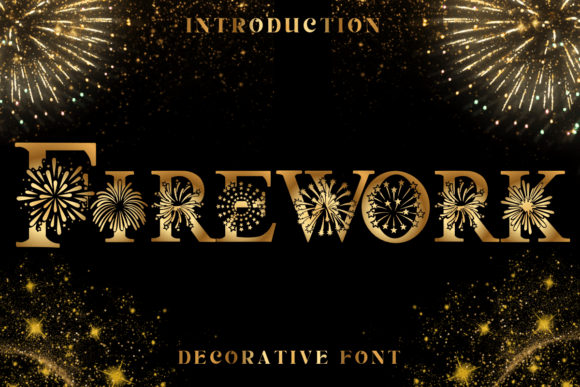
The Perfect Spark: Unleashing the Magic of the Firework Font
As I sat in my design studio, brainstorming ideas for a New Year’s Eve invitation, I suddenly felt a rush of inspiration. I imagined a night sky filled with vibrant fireworks, each explosion bursting with color and light. And in that moment, I knew exactly what I needed: a font that captured the essence of that magical night. Enter the Firework Font, a breathtaking decorative typeface that brings the excitement of fireworks to your designs.
The Firework Font is more than just a pretty face – it’s a powerful tool for designers looking to add a touch of luxury and drama to their projects. With its intricate starburst and spark patterns, this font is perfect for creating a “grand opening” feel that’s sure to impress. Whether you’re designing invitations for a high-end gala or creating branding for a luxury event, the Firework Font is the perfect choice to add a spark of magic to your designs.
Firework Font Key Features
- Font Family: Firework Font is a unique, hand-drawn font designed for various creative applications.
- Unique Characteristics: The font features intricate, hand-drawn details and ornaments, making it perfect for adding a touch of whimsy to designs.
Designer Review: Firework Font
Overall, I’m impressed with the playful and energetic vibe of the Firework Font. It’s perfect for adding a pop of fun to your designs, especially when you need to make a statement. ✨ I love how it’s bold, yet not too overwhelming, making it versatile for a variety of applications.
One of the standout features of this font is its excellent legibility. It’s clear and easy to read, even at smaller sizes. ✨ I also appreciate the font’s extensive character set, which includes a wide range of symbols and icons.
While I’m a big fan of the Firework Font, I do have a few concerns.
- ⚠️ Limited support for languages other than English, which might be a concern for global brands.
- ⚠️ Some users might find the font’s boldness overwhelming, especially for smaller text sizes.
Overall, I think the Firework Font is a great addition to any designer’s toolkit. With its playful personality and excellent legibility, it’s sure to add a spark to your designs. However, it’s essential to keep in mind its limitations and potential drawbacks before making it a go-to font for your projects.
The Firework Font is perfect for creating attention-grabbing headlines, social media graphics, and party invitations. It’s also great for adding a celebratory touch to your designs.
Experiment with different font sizes, colors, and styles to create a unique look. Use the Firework Font in combination with other bold fonts for maximum visual impact. Consider using a background image or color to enhance the font’s effect.